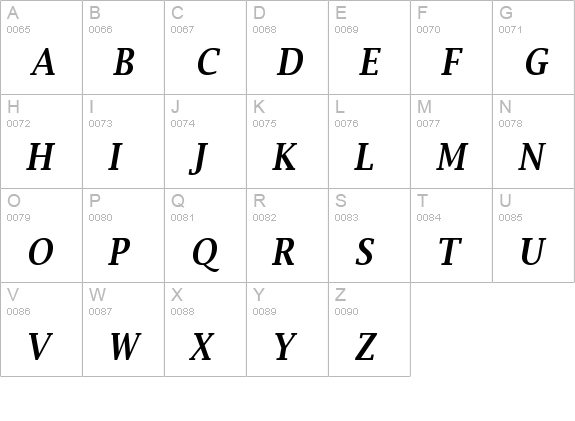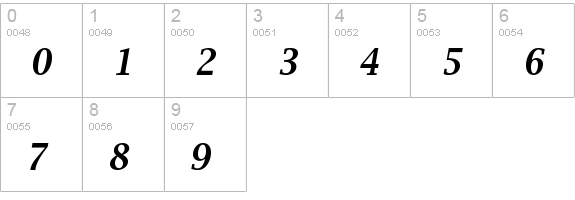
LucidaBrightNarEF-DeBolIta Font Details
LucidaBrightNarEF-DeBolIta is a modern and stylish font that exudes elegance and sophistication. With its bold and italic design, this font is perfect for making a statement in your projects. The unique letterforms and smooth curves create a visually appealing look that will captivate your audience. The best part about LucidaBrightNarEF-DeBolIta font is that it is completely free to download. You can easily access this stunning font at FontsMarket.com, where you can enhance your designs with this premium quality typeface without any cost. Whether you are working on branding, advertising, or any creative project, LucidaBrightNarEF-DeBolIta font will add a touch of class and professionalism to your work. Don't miss out on the opportunity to elevate your designs with this exceptional font available for free download.